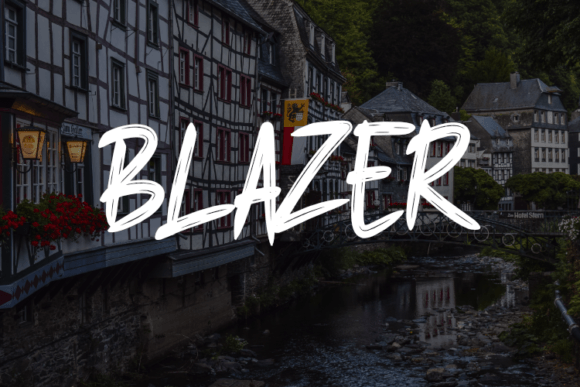
Unlocking Creativity with Blazer Font
Have you ever been in the middle of a design project, and suddenly, it hits you – the font you’re using just isn’t cutting it? I recall a particularly frustrating experience while working on a t-shirt design project. My client wanted a font that was stylish, versatile, and could convey a sense of high-end fashion. After hours of scouring the internet for the perfect typeface, I stumbled upon Blazer Font. It was love at first sight! ✨
A Versatile Font for Fashion and Beyond
Blazer Font is a game-changer for designers, crafters, and creative hobbyists. Its unique design makes it an ideal choice for fashion and apparel, but its versatility extends far beyond. Whether you’re working on t-shirt designs, high-end couture, or dynamic media platforms, Blazer seamlessly adapts to your creative needs.
An Honest Review of Blazer Font
• ✨ Versatility: Blazer Font is designed to transcend the boundaries of design, making it perfect for various products and media platforms.
• ✅ Professionalism: The font exudes style and sophistication, making it ideal for high-end fashion and apparel designs.
While Blazer Font is an excellent choice, there are a few minor quirks to consider: 🤔
• ⚠️ Glyph Limitations: Some users have reported limitations with certain glyphs, but these can be easily overcome with OpenType features.
• ⚠️ Kerning Issues: As with any font, kerning issues may arise, but these can be easily adjusted in most design software.
The Story Behind Blazer Font
Blazer Font was designed with the fashion industry in mind. Its creator, a renowned typographer, wanted to craft a font that would meet the demands of fashion designers and brands. The result is a font that is both stylish and versatile, perfect for a wide range of design applications.
What is Blazer Font best used for? Blazer Font is ideal for fashion and apparel designs, but its versatility makes it suitable for a wide range of design applications, including t-shirt designs, high-end couture, and dynamic media platforms.
Blazer Font is a game-changer for designers, crafters, and creative hobbyists. Its unique design, versatility, and compatibility make it an ideal choice for fashion and apparel designs. With its OpenType features, glyphs, and stylistic alternates, Blazer Font is sure to elevate your designs to the next level. 🔥